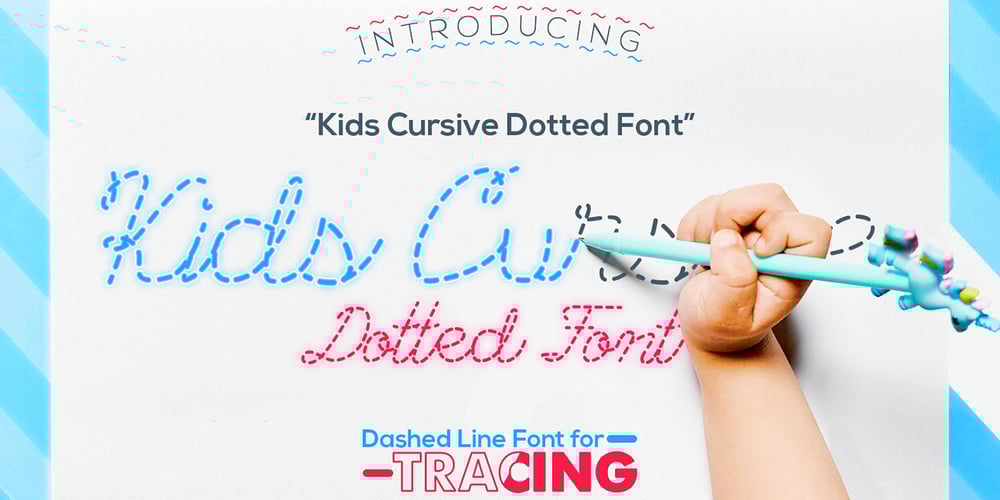
Kids Cursive Dotted Font Family was designed by Mohammed Lamjidi and published by Beast Designer. Kids Cursive Dotted contains 1 styles and family package options. Kids Cursive Dotted is an incredibly interesting dashed display font. It was designed especially for letter tracing worksheet for preschoolers, but it could be employed to a variety of other designs. Add it to your portfolio of fonts and it will soon become your favorite option no matter the creation!